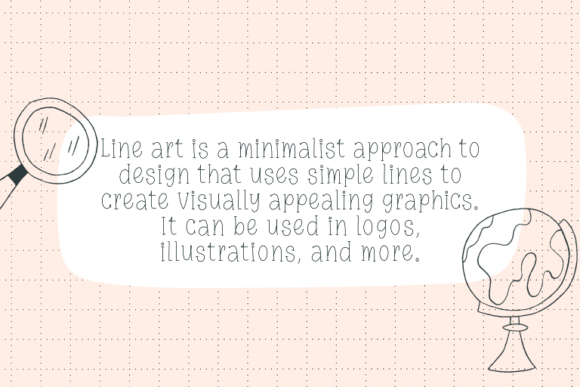
Realty Values is a simple single-line font with powerful visual effects. Add it to your work, and it will instantly make your creations unrecognizable!
Realty Values Font